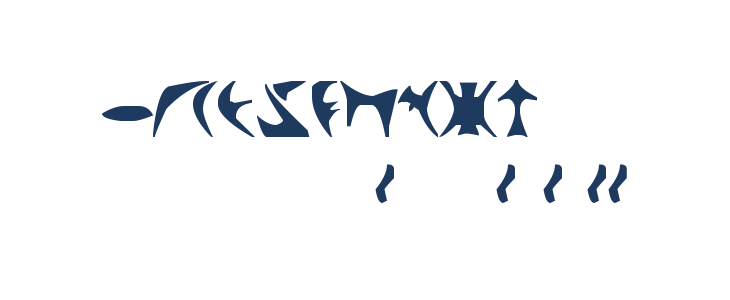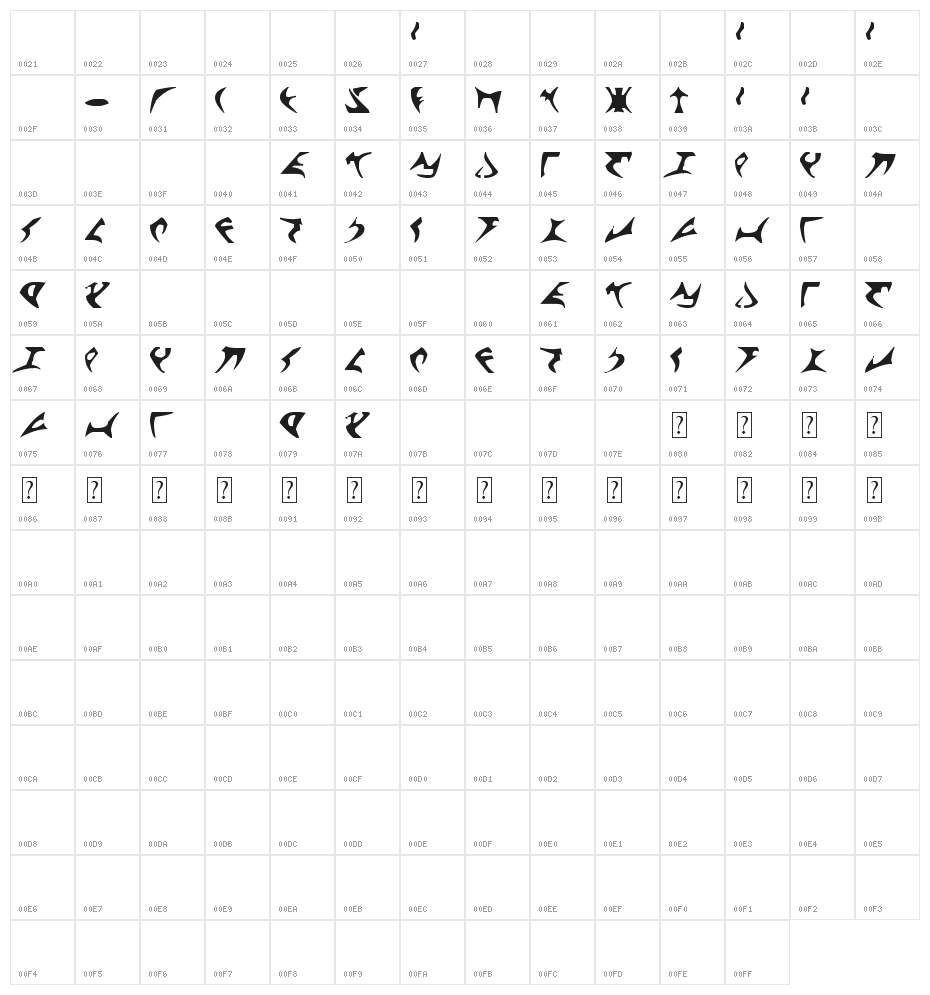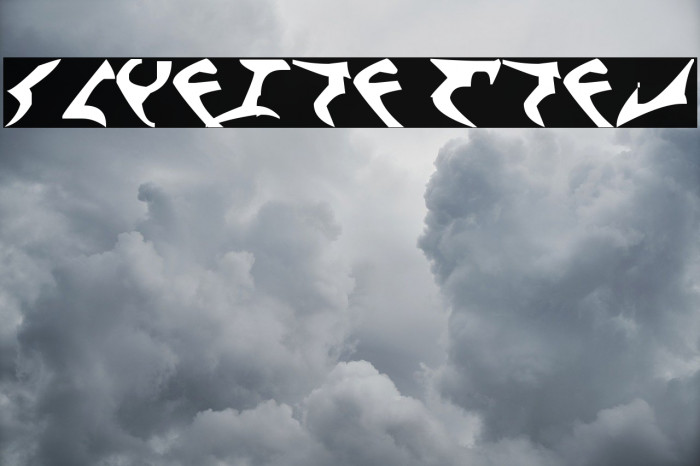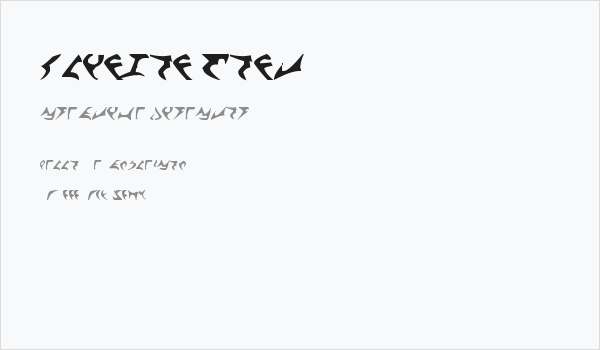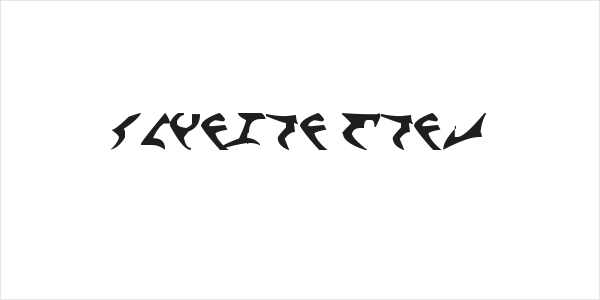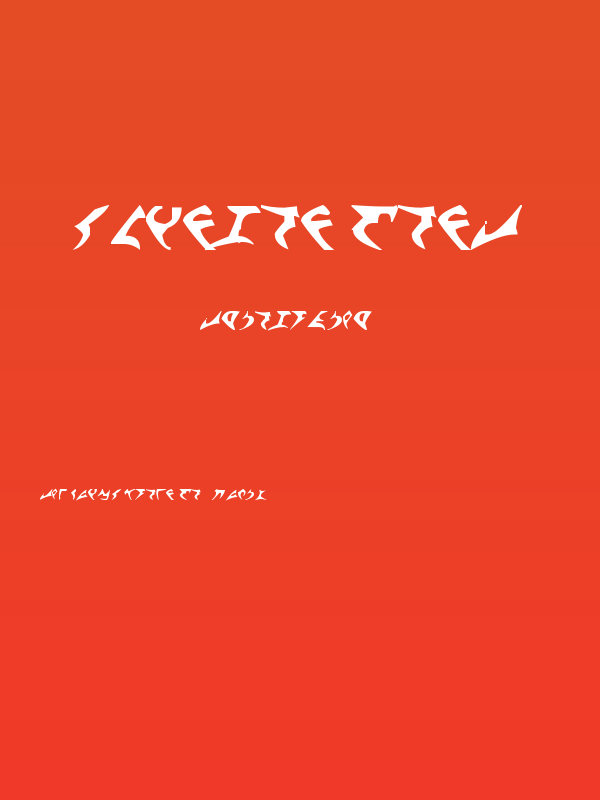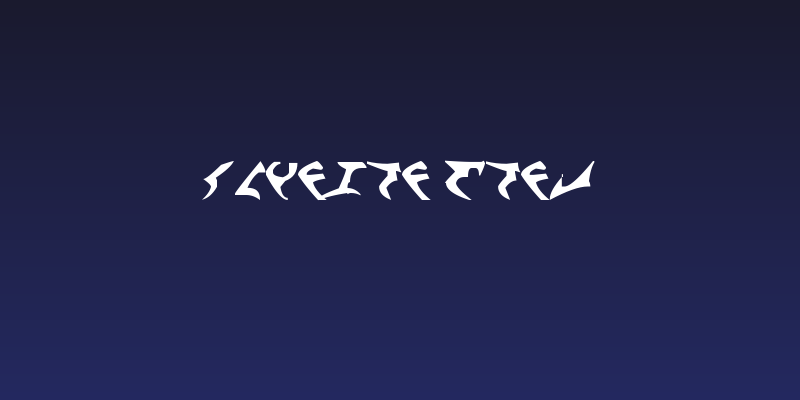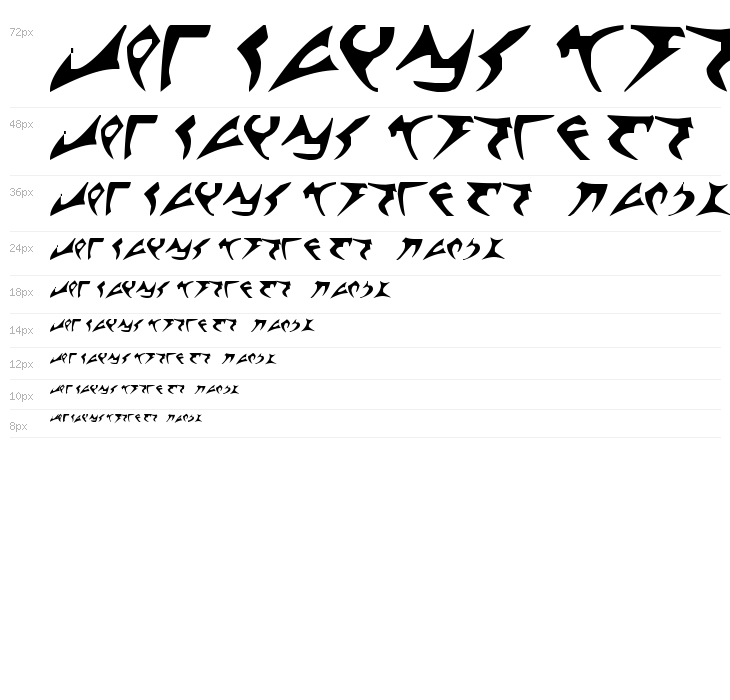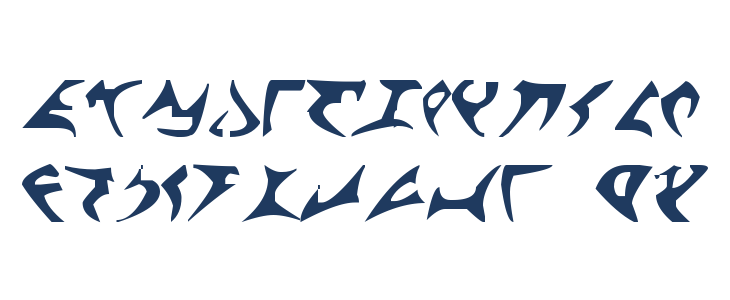
klingon font Font
klingon font Description
This font features a highly stylized and angular design, reminiscent of alien or futuristic scripts. The characters are bold and sharp, with a distinct geometric flair that suggests a sense of mystery and otherworldliness. The strokes are thick and consistent, creating a uniform appearance across all characters. This font is particularly striking due to its unique shapes and forms, which deviate significantly from traditional Latin alphabets. The overall aesthetic is both aggressive and intriguing, making it suitable for projects that aim to convey a sense of adventure or science fiction.
| Overall Style | Futuristic, Alien |
| Use Case | Logos, Posters, Titles |
| Proposed Projects | Ideal for science fiction themes, video game graphics, movie posters, or any creative project requiring a unique, otherworldly aesthetic. |